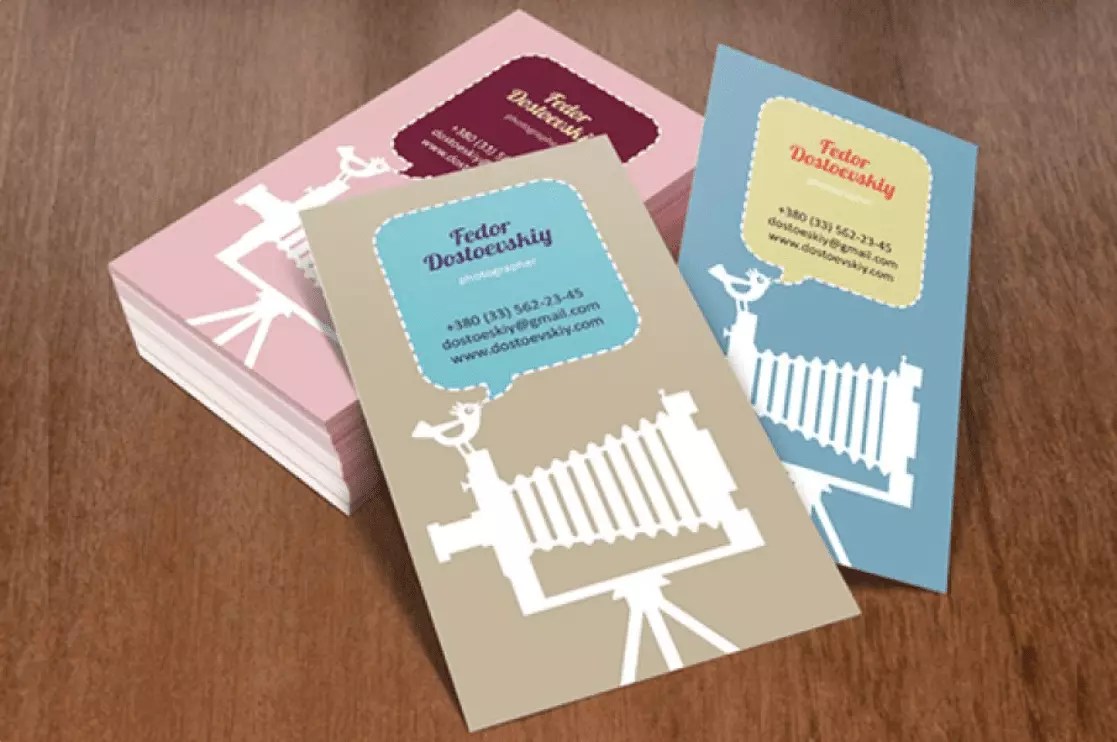
Review Of Best Fonts For Business Cards 2020 References
Review Of Best Fonts For Business Cards 2020 References. Web 21 best business card fonts 1. Web for example, if your business card needs to express your expertise in design, photography, or visual arts, the best font for your business card might need to.
Corporative slab makes a statement. The sole purpose and design revolved only around editorials in mind. Product image & rating (out of 10) product name.
Web 21 Best Business Card Fonts 1.
Web mozart is one of the best solutions to design your business card with the early american handwriting styles. Web top fonts for business cards. Thin, regular, bold, and black with extra thin.
Web For Example, If Your Business Card Needs To Express Your Expertise In Design, Photography, Or Visual Arts, The Best Font For Your Business Card Might Need To.
It comes with 4 weights: Web business cards with clean sans serif fonts—. If you want your business to convey strength, you will want to try out the coldiac luxury serif font.
This Design Combines Light Illustration And A Sans Serif Font By Ruaran.
Ff tisa is also a very famous font in the online business world. The sole purpose and design revolved only around editorials in mind. Product image & rating (out of 10) product name.
Web It Is Also A Legible Option No Matter What Kerning And Tracking Space You Apply To The Text, Which Makes It A Very Good Font For Business Cards.
Modern graphic designers surely have polarized opinions on times new roman. Love it or hate it, this. Clean sans serif design by ultrastjarna.
It’s A Tradition Of Typeface Designers To Iterate On Previous Models, And Olivetta Is No Different.
Web if you want your business cards to have a classic look to it, trajan can help your card look elegant and unique. Times new roman has also become a top pick of designers for creating business cards. A fun tech card by rikirah.